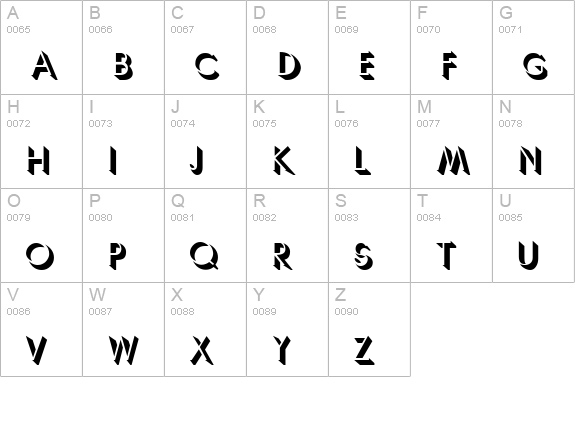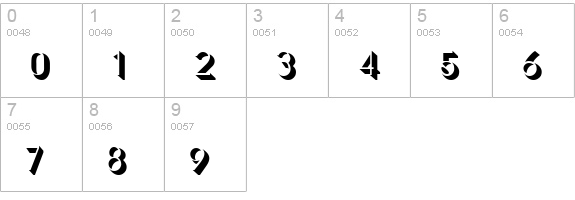
DG_Unbra Font Details
Introducing DG_Unbra font, a versatile and modern typeface that effortlessly blends elegance with a touch of avant-garde aesthetic. This unique font strikes the perfect balance between sophistication and creativity, making it ideal for a wide range of design projects. DG_Unbra font features sleek, clean lines and a distinctive style that sets it apart from traditional typefaces. Its sharp angles and futuristic vibe make it perfect for branding, logos, headlines, and more. Whether you're designing a sleek corporate identity or a cutting-edge editorial layout, DG_Unbra font will add a touch of sophistication to your work. Best of all, DG_Unbra font is available for free download at FontsMarket.com. This means you can easily access this stunning typeface and incorporate it into your projects without any cost. Don't miss out on the opportunity to elevate your designs with the sleek and modern DG_Unbra font. Download it today and unleash your creativity!